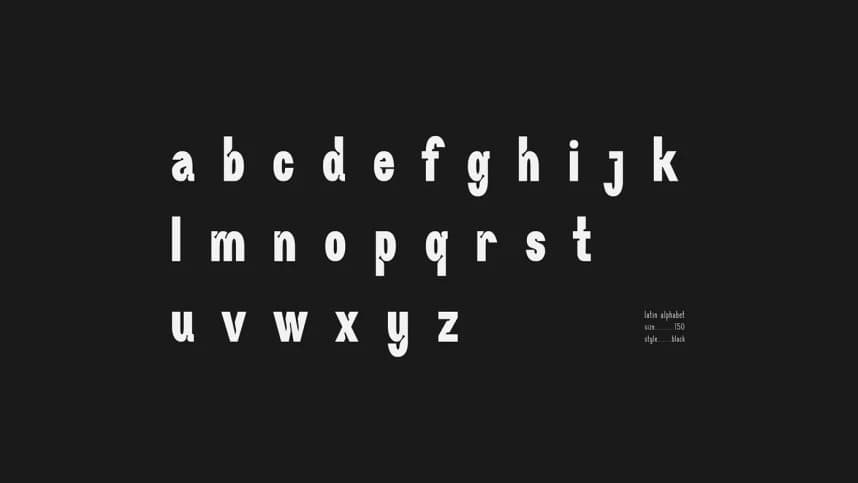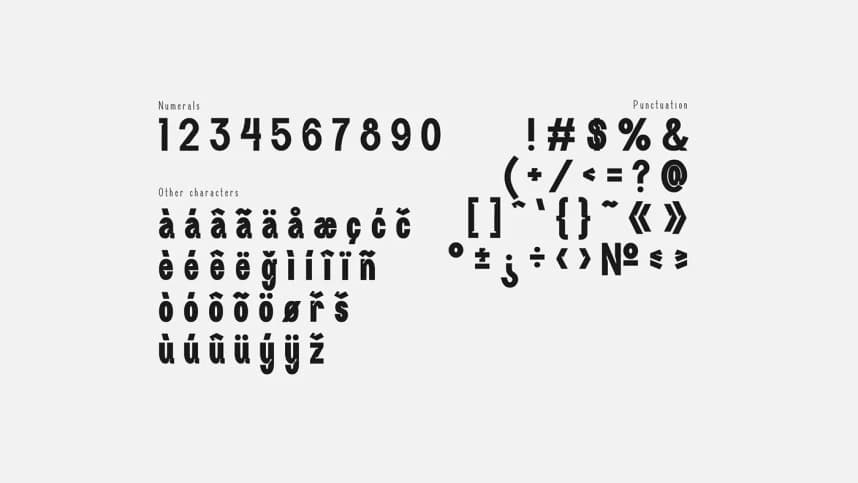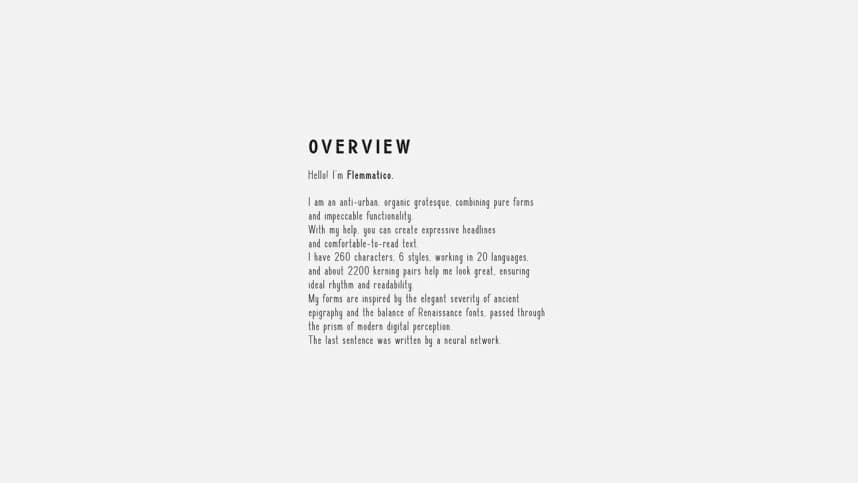
Flemmatico Font
Flemmatico Font is a modern organic grotesque font that blends geometric structure with expressive human character. Featuring tall proportions, subtle curves, and unique inktrap-inspired details, this typeface delivers a clean yet playful visual identity.